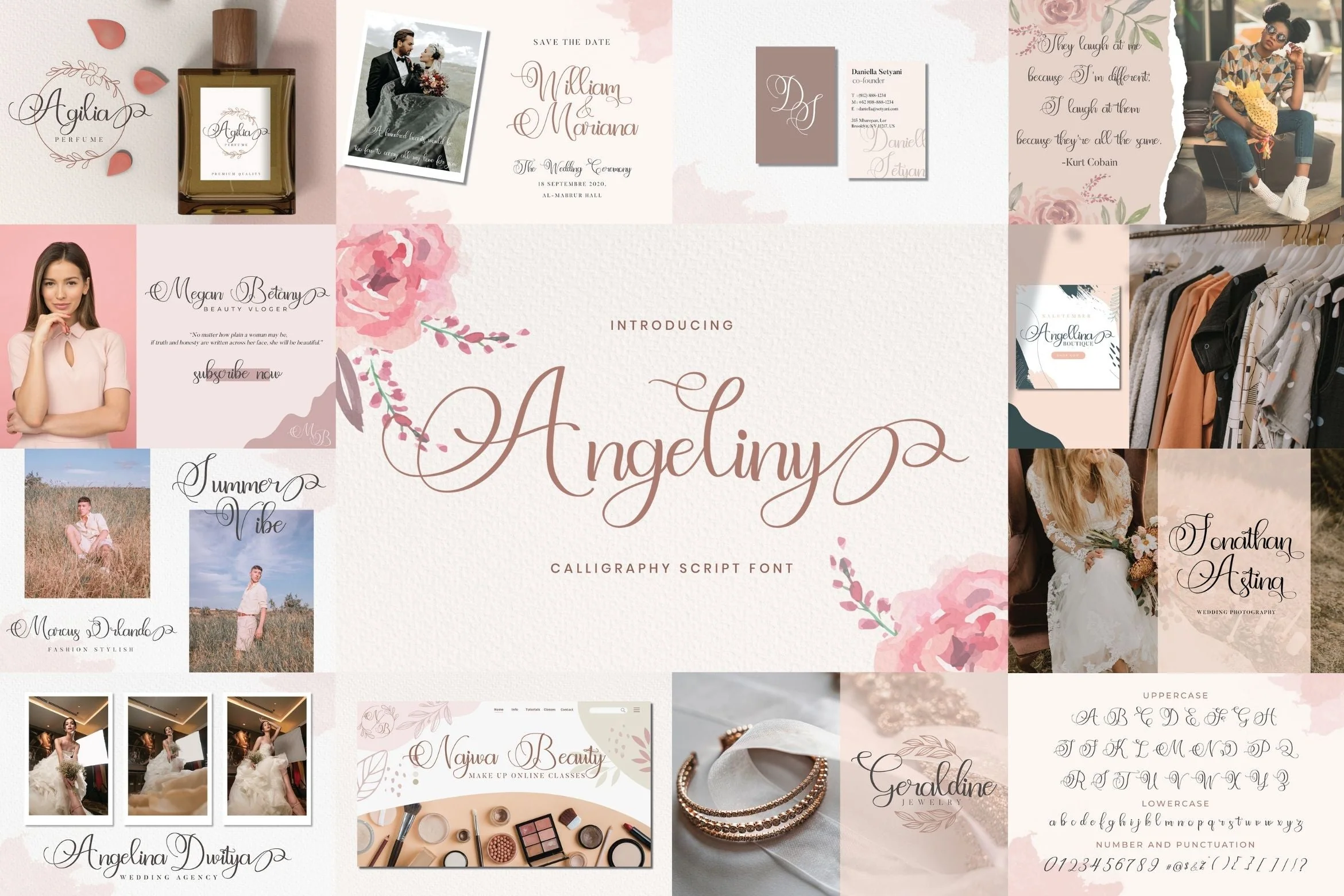
Handwritten Font Bundle Vol 12
Handwritten Font Bundle Vol 12 is a delicate, elegant and flowing handwritten font. This font bundle contains 8 high quality handwritting script font, it will look simply magical in a wide range of design projects, and also that will look particularly adept when used in logos, branding, packaging design, and much more. It has beautiful and well balanced characters and as a result, it matches a wide pool of designs. Add it to your most creative ideas and notice how it makes them come alive!
1. Angeliny
2. Hunthers Dwayne
3. The Antique
4. Bahisey
5. Oyange
6. Jarida
7. Pagi Senja
8. Sellviny Queen